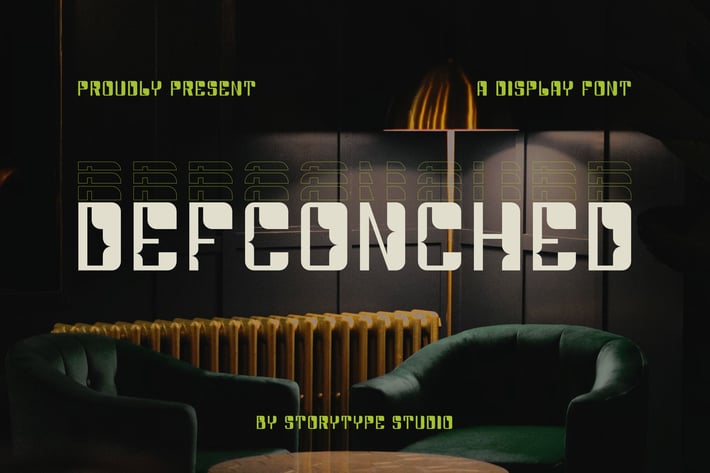
Defconched A Display Font
Defconched is a futuristic display font built with bold geometry, digital-inspired cuts, and a strong industrial rhythm. Its sharp edges, blocky structure, and sci-fi coding aesthetic make it perfect for designs that need a high-tech, modern, or dystopian atmosphere. With its commanding style, this typeface brings intensity and character to every visual project.
Futuristic geometric display style
Digital-inspired letter cuts and coded aesthetic
Bold, strong shapes for impactful headlines
Clean structure for modern visual identity
Sci-fi posters & movie titles
Tech branding & digital interfaces
Gaming graphics & esports visuals
Cyberpunk-style layouts
Album covers & promotional materials
Futuristic packaging design
Modern editorial headlines
High-impact display typography
Bold, coded, and irresistibly futuristic — Defconched brings a high-tech edge to every creative project.*